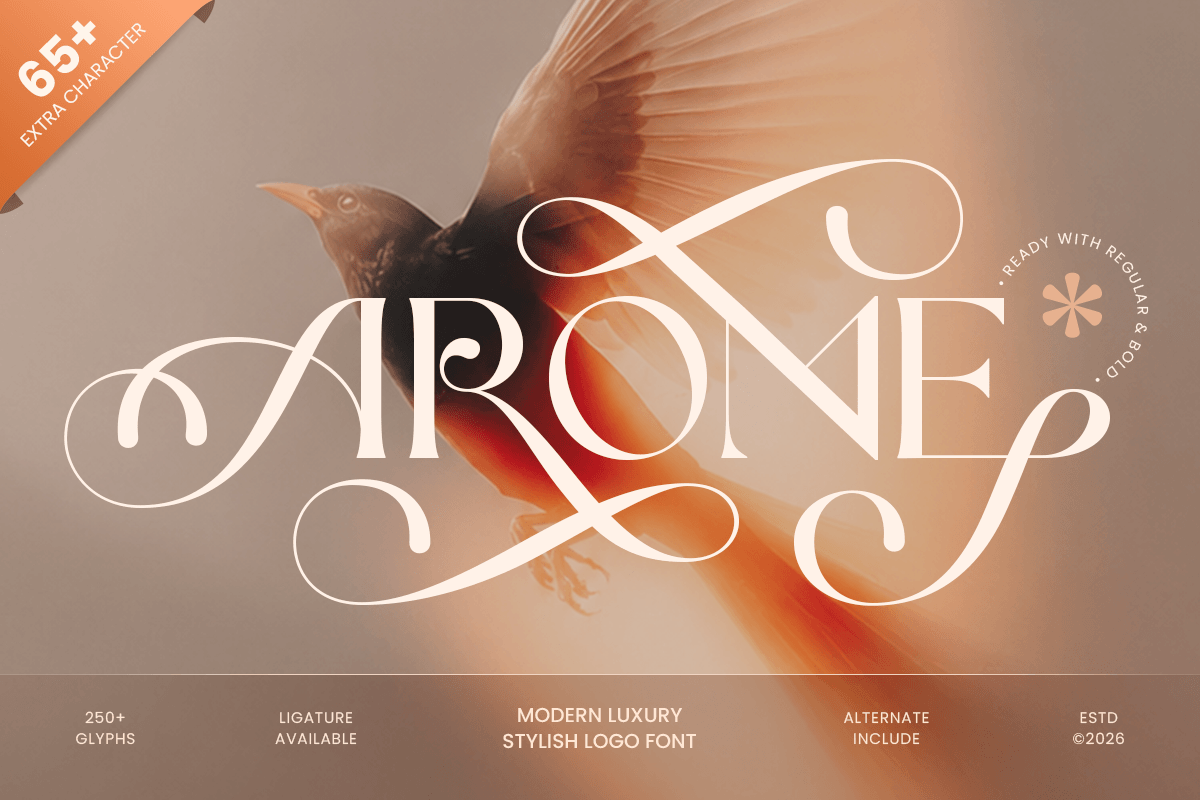
Arome
-Modern Elegant Stylish Logo Font
Arome - Modern Elegant Stylish Logo Font
AROME is a modern elegant stylish logo font designed to bring sophistication and contemporary beauty to your branding projects. Featuring refined letterforms, balanced proportions, and graceful details, this typeface is ideal for luxury brands, fashion labels, editorial layouts, and premium packaging.
Crafted for designers who value elegance and versatility, AROME delivers a polished visual presence that feels modern yet timeless. Its clean structure allows it to perform beautifully across logos, headlines, invitations, websites, and marketing materials, creating a strong and memorable identity.
Whether you're building a luxury brand, designing a fashion campaign, or creating stylish editorial content, AROME provides the perfect balance between modern minimalism and sophisticated charm.
AROME – Modern Elegant Stylish Logo Font Features
• Elegant and stylish design with modern branding appeal
• Perfect for logos, packaging, editorials, and luxury identity systems
• Refined letterforms with balanced visual proportions
• Ideal for fashion, beauty, lifestyle, and premium creative projects
• OpenType features for advanced typographic flexibility
Create a refined and memorable identity with AROME – the ultimate elegant logo font for stylish, modern, and luxury branding. ✨💎